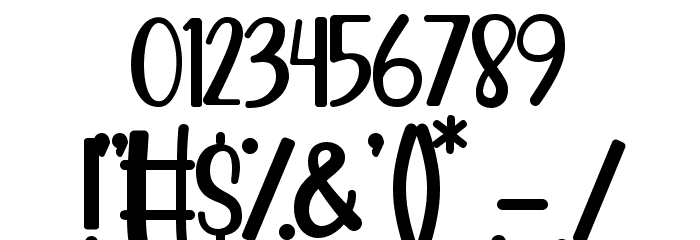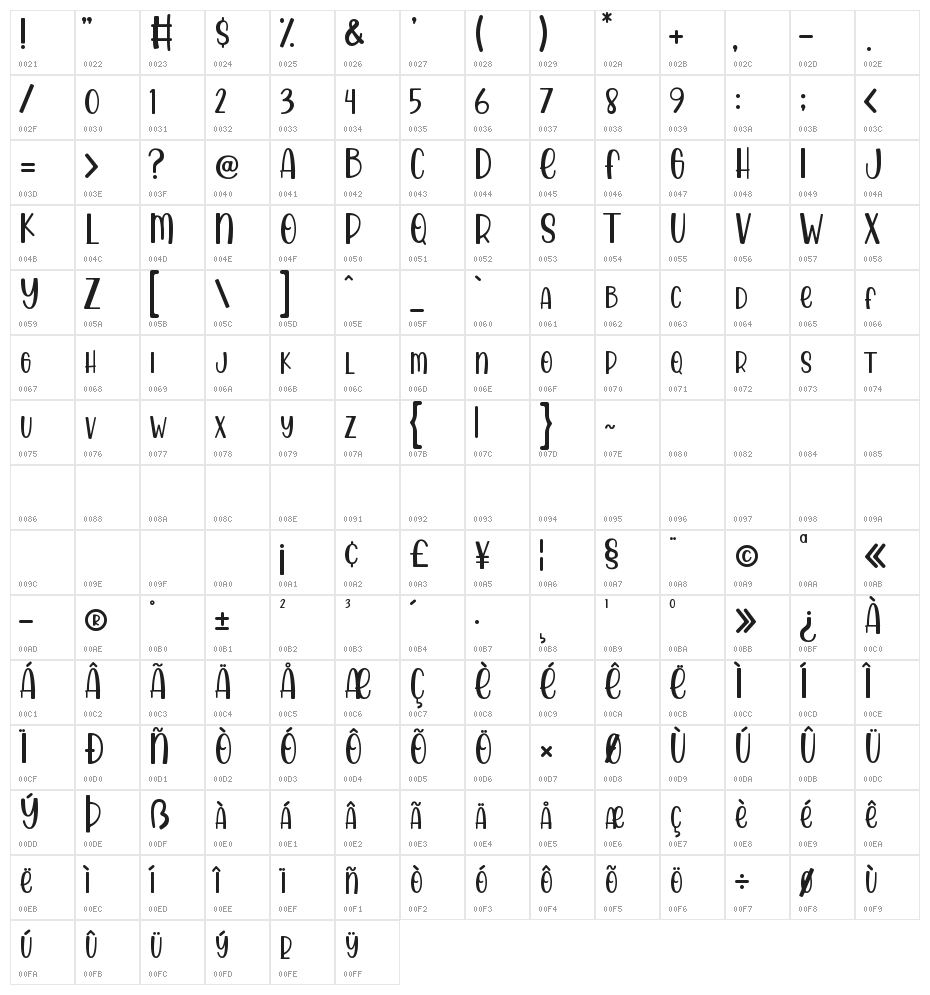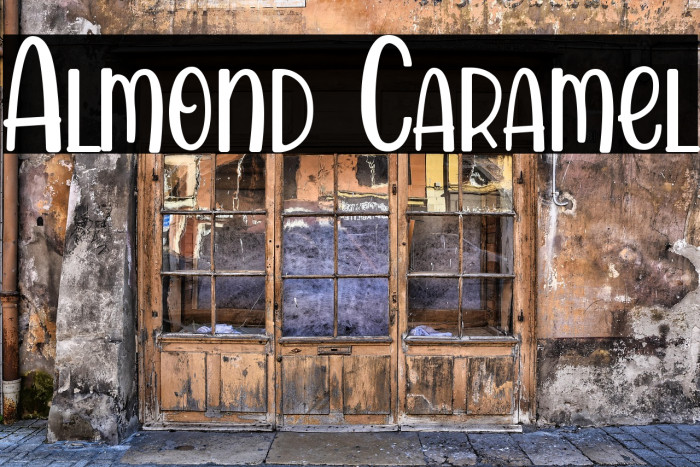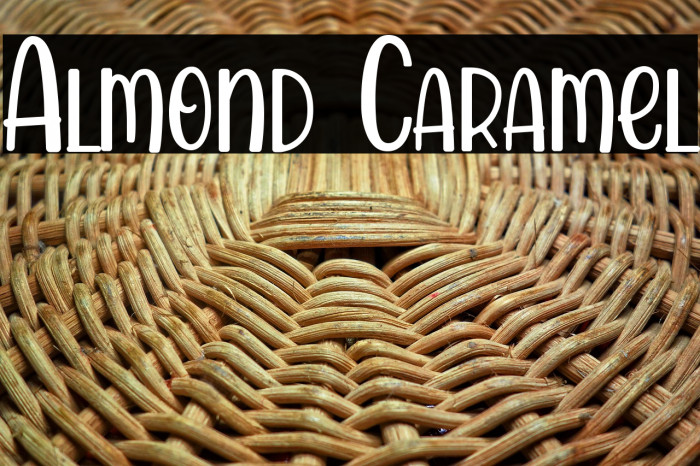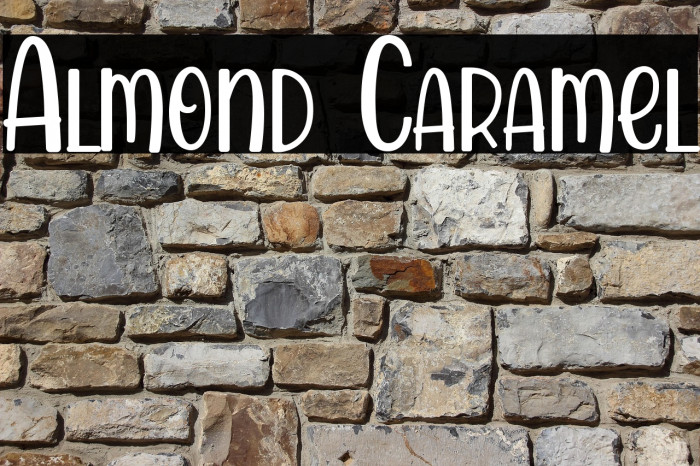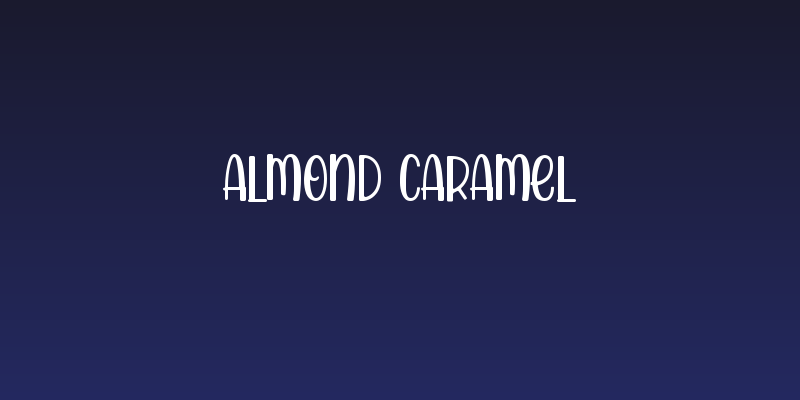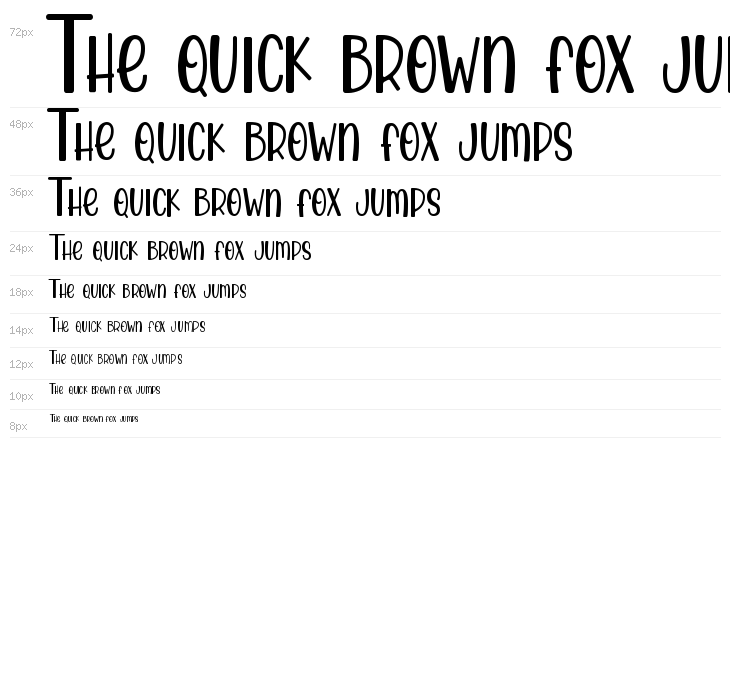
Almond Caramel Font
Almond Caramel Description
This font features a playful and whimsical design, characterized by its tall, narrow letters with rounded edges. The uppercase and lowercase letters maintain a consistent style, with a slight slant that adds a touch of dynamism. The numbers and special characters are crafted to match the overall aesthetic, ensuring a cohesive look across all text. The font's unique style makes it stand out, with a friendly and approachable feel that is perfect for creative projects.